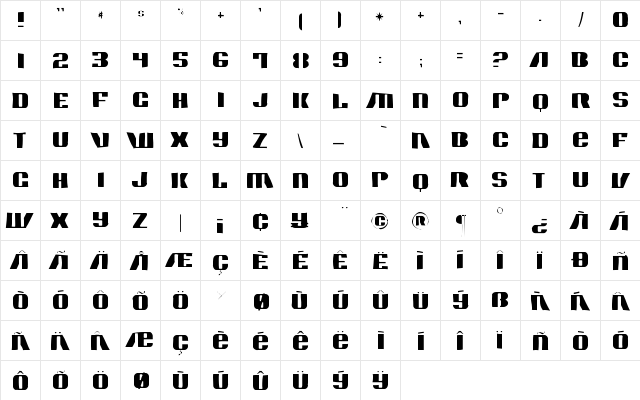
Contour Generator Gaunt Regular
Design Context for Contour Generator Gaunt Typeface
Contour Generator Gaunt is a composed and adaptable typeface that performs quietly and consistently across a wide range of design contexts.
Pro Tip: Use Contour Generator Gaunt in both headline and body roles to test its range before committing to a single application.